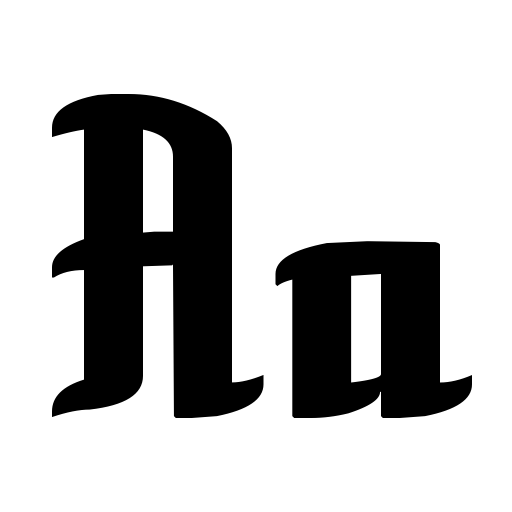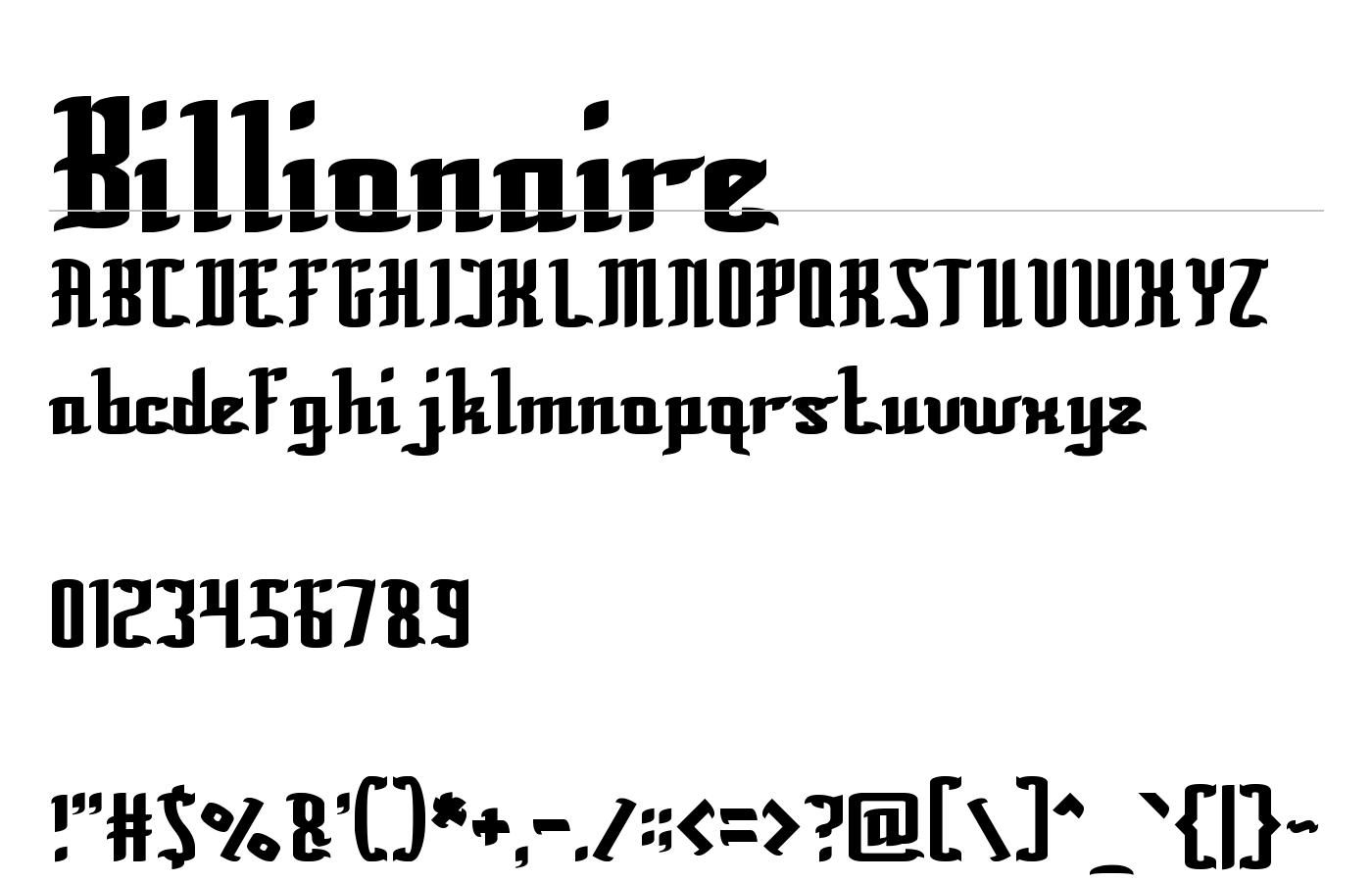
Billionaire Font is a bold, condensed blackletter style typeface that combines vintage gothic charm with a strong, modern presence. Its sharp, angular strokes and high contrast give it a powerful and elegant look, perfect for luxury branding, headlines, and editorial designs that want to convey sophistication and authority. This font works especially well in fashion, posters, and logos where a dramatic, historical yet contemporary feel is desired.
Billionaire Font
About Billionaire Font